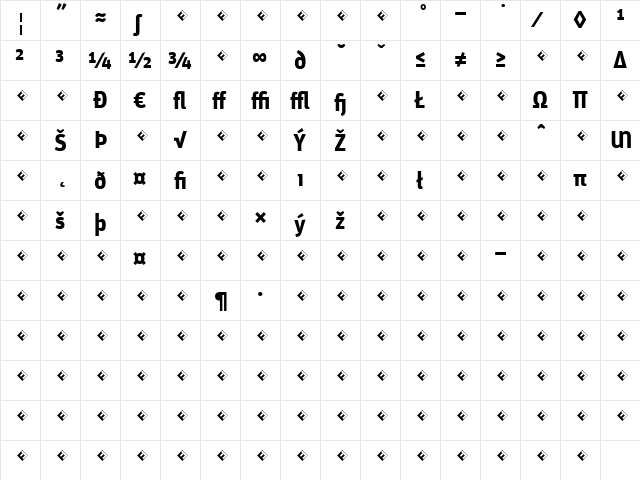
Unit-BoldTFExpert Regular Font Preview
Unit-BoldTFExpert Regular
Unit-BoldTFExpert Regular Font Details
| Foundry | Erik Spiekermann, Christian Schwartz; published by FontShop International for the FontFont Library |
| Designer | Erik Spiekermann, Christian Schwartz |
Design Context for Unit-BoldTFExpert Typeface
Unit-BoldTFExpert is a composed and adaptable typeface that performs quietly and consistently across a wide range of design contexts. Its bold stroke weight gives it real presence on the page.